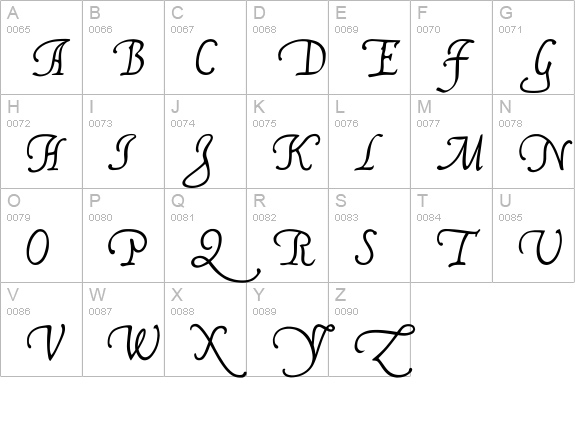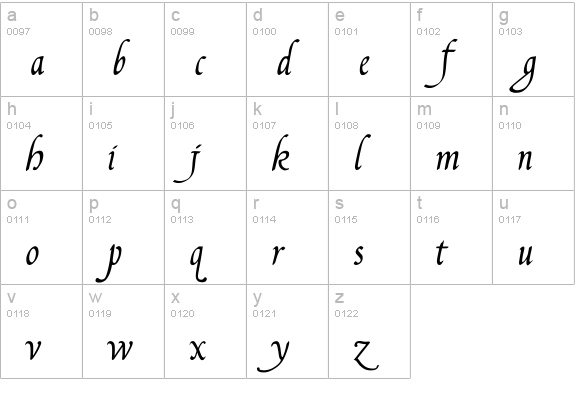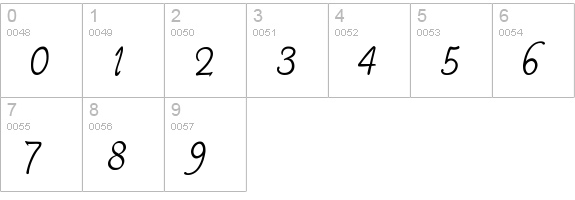
FranciscoLucas Llana Font Details
FranciscoLucas Llana font is a beautifully crafted typeface that exudes elegance and sophistication. Its unique design features intricate details and graceful curves that make it perfect for a wide range of design projects. This font is versatile and can be used for various purposes, from branding to editorial design. One of the best things about FranciscoLucas Llana font is that it is available for free download at FontsMarket.com. This means that you can easily access and use this stunning font in your projects without any cost. Whether you are a professional designer or a hobbyist looking to add a touch of class to your creations, FranciscoLucas Llana font is a fantastic choice that won't break the bank. With its timeless appeal and high-quality design, FranciscoLucas Llana font is sure to elevate your projects and leave a lasting impression on your audience. Download it today and unlock the endless creative possibilities that this beautiful font has to offer.